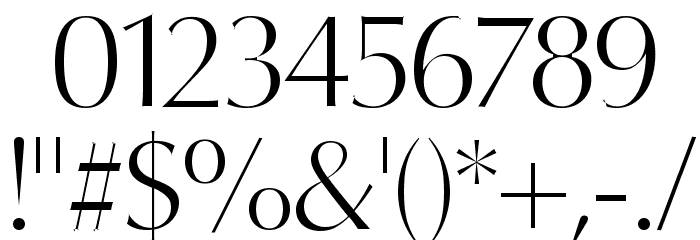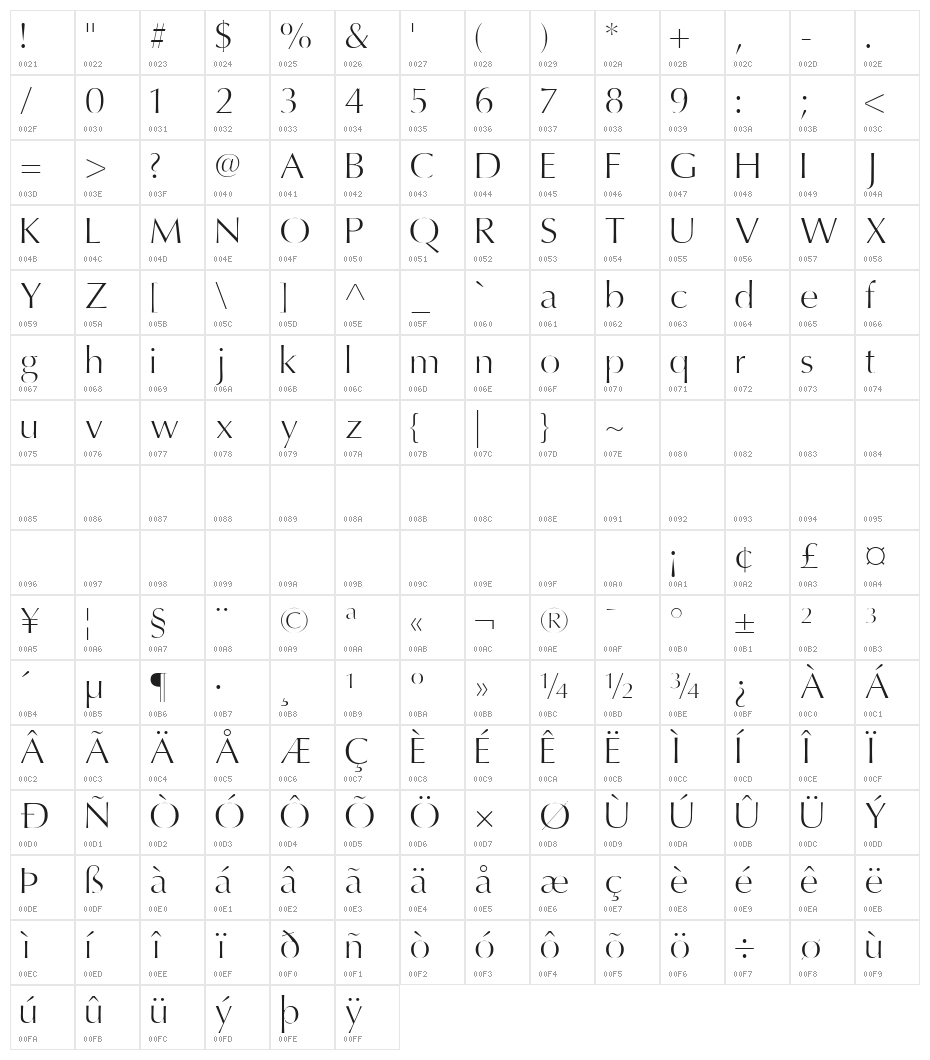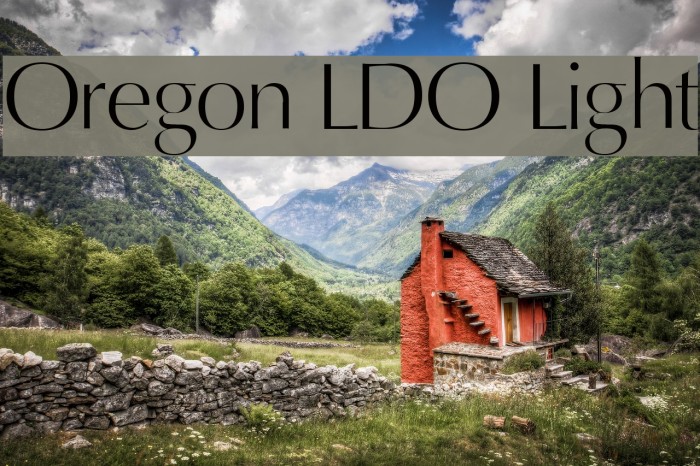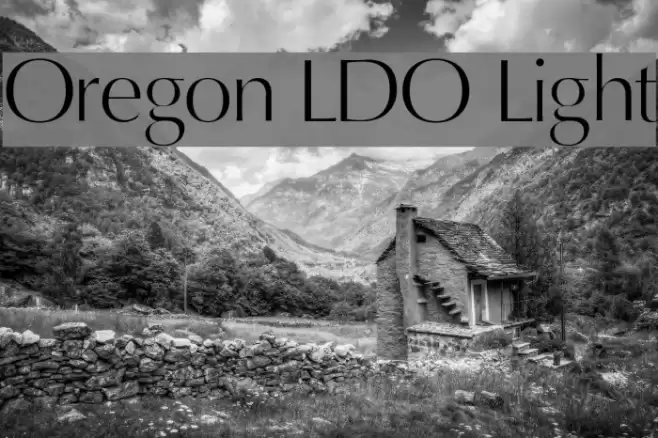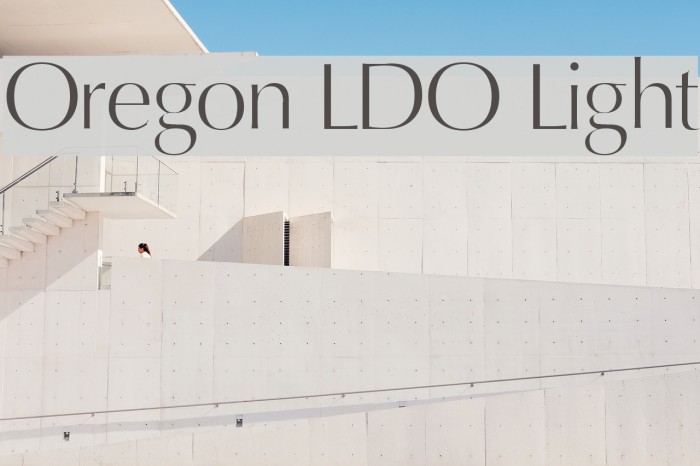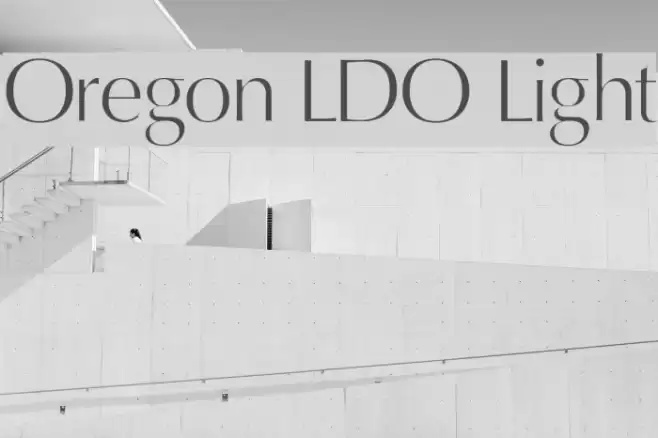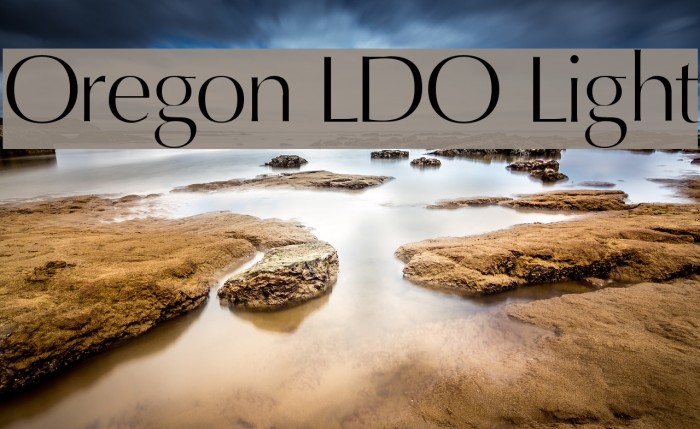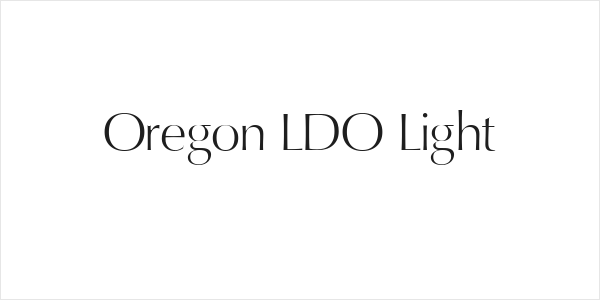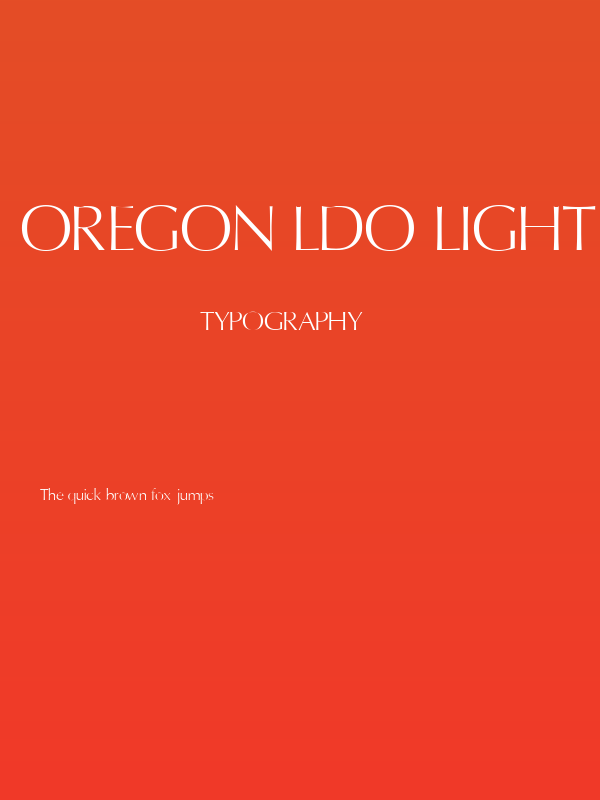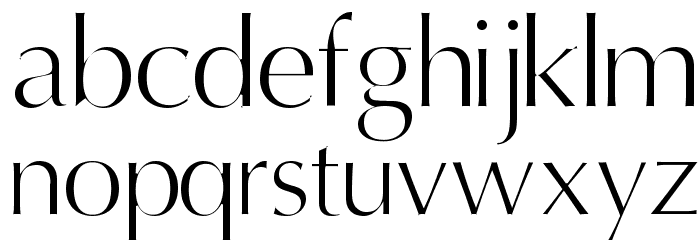
Oregon LDO Light Font
Oregon LDO Light Description
This font exhibits a sleek and modern design with a light weight that gives it an airy and elegant appearance. The characters are crafted with a high contrast between thick and thin strokes, which adds a sophisticated touch. The uppercase letters are tall and slightly condensed, while the lowercase letters maintain a consistent height, contributing to a harmonious and balanced look. The numerals are clear and distinct, making them easily readable. Special characters are designed with the same attention to detail, ensuring they integrate seamlessly with the rest of the typeface. Overall, this font is versatile and suitable for a variety of design applications.
| Proposed Projects | Ideal for branding, editorial design, fashion magazines, and luxury product packaging. |